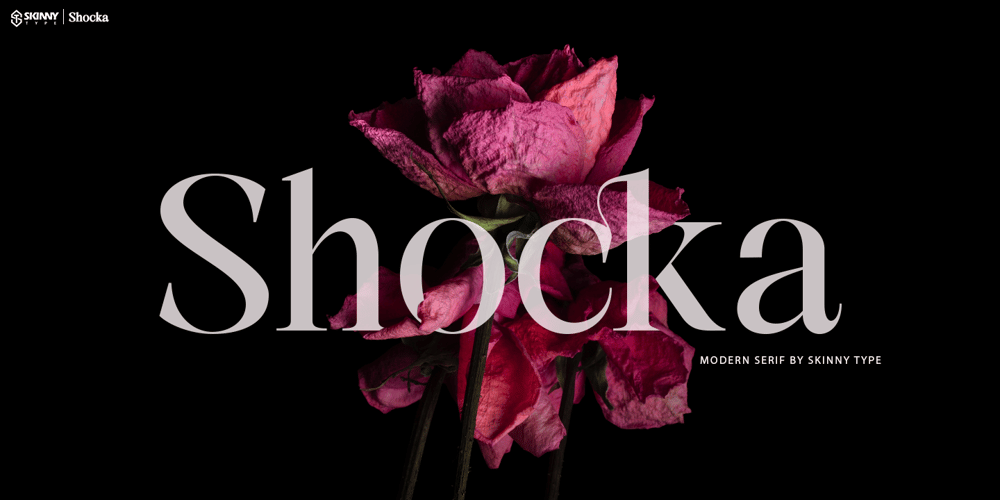
Shocka
Shocka font
Shocka Font Family was designed by Muhajir and published by Skinny Type. Shocka contains 2 styles and family package options. Shocka – a serif look with simple, clean and visual elegance with smooth curves and beautiful ligatures, A very versatile font that works in both large and small sizes. This font is suitable for a wide variety of projects such as: headlines, logos, labels, branding projects, magazines, homeware designs, product packaging, mugs, quotes, posters, and more. It can also be more expressive and fun, thanks to the many alternatives and binders that combine harmoniously in this font and make it more interesting and versatile. Try to change alternatives, binders and you will get many options for your project which will make it bold & beautiful.Features:Section• Full set of uppercase, lowercase• Ligatures• Alternative• A wide variety of numbers, symbols & punctuation• Characters with accents• Support Multiple Languages• PUA encodedWHAT IS INCLUDED:• Shocka – Regular• Shocka– OutlineThis type of family has become the work of true love, making it as easy and fun as possible.I really hope you enjoy it!I can’t wait to see what you do with Stanger Display! Feel free to use the #Skinny_Type and #Shocka Serif font tags to show what you’ve donevisit my Instagram : https://www.instagram.com/skinny.type/Thank you!